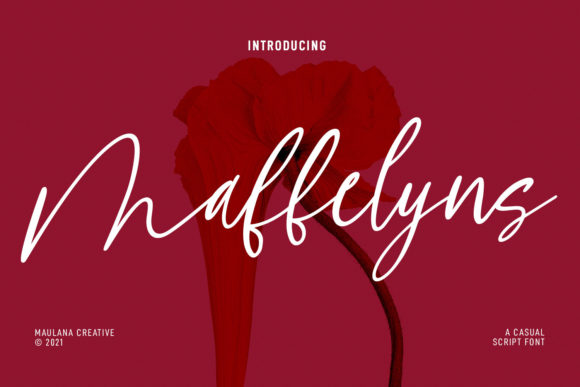
Meet Maffelyns, the elegant and alluring script font that will bring a touch of sophistication to your creative projects. As you embark on your design journey, Maffelyns will be your steadfast companion, adding a dash of charm to your every creation.
Unleash your creativity and let your imagination soar with Maffelyns. Its graceful strokes and delicate curves will transform your designs into captivating masterpieces. Its versatility knows no bounds, making it suitable for a wide range of projects, from personal invitations to professional branding.
With Maffelyns, you can effortlessly evoke a sense of nostalgia and romance in your designs. Its timeless charm will add a touch of vintage elegance to your work, while its modern sensibility ensures that your creations remain fresh and contemporary.
Imagine the possibilities:
- Craft heartfelt wedding invitations adorned with Maffelyns' delicate script, captivating your guests even before the ceremony begins.
- Design eye-catching logos and branding that leave a lasting impression on your clients, establishing a strong brand identity.
- Create stunning social media posts that stand out from the crowd, drawing followers in with their unique and captivating aesthetic.
- Elevate your marketing materials with Maffelyns' sophisticated touch, capturing the attention of potential customers and driving conversions.
- Express yourself in a truly personal way with Maffelyns, turning your creative visions into tangible works of art.